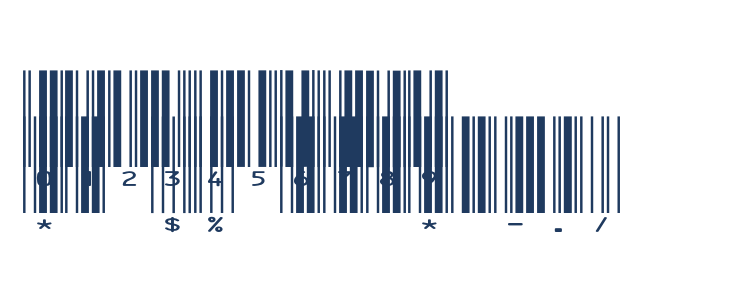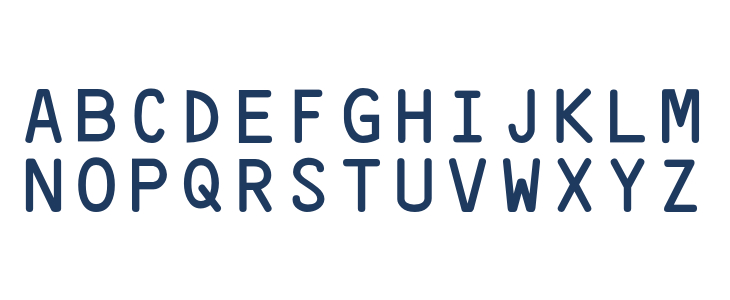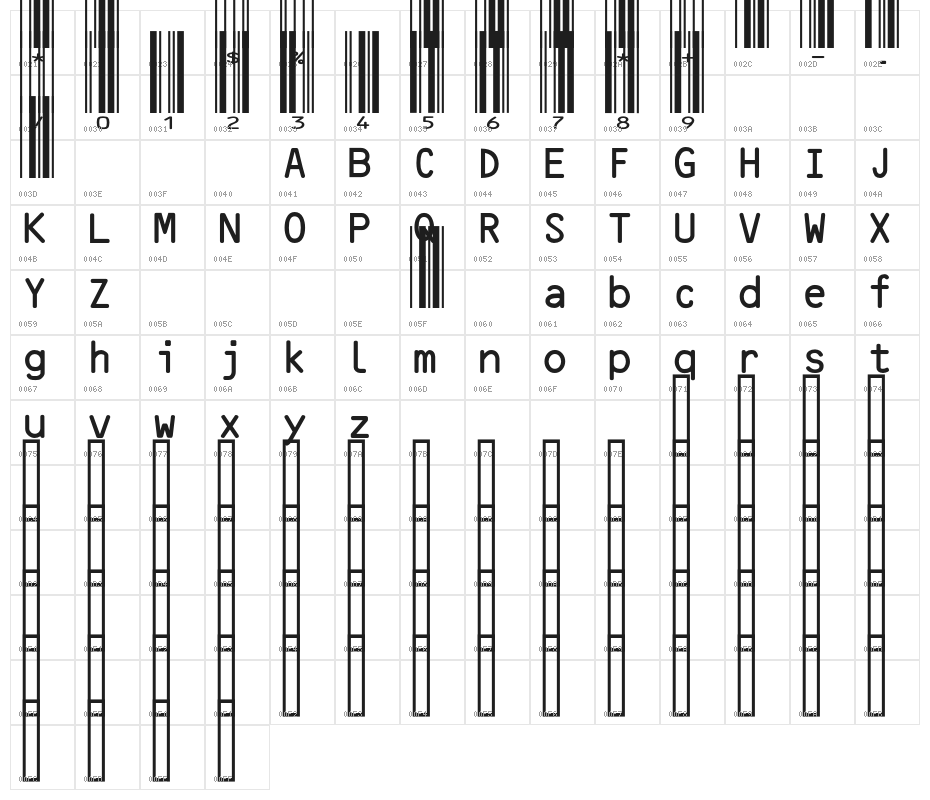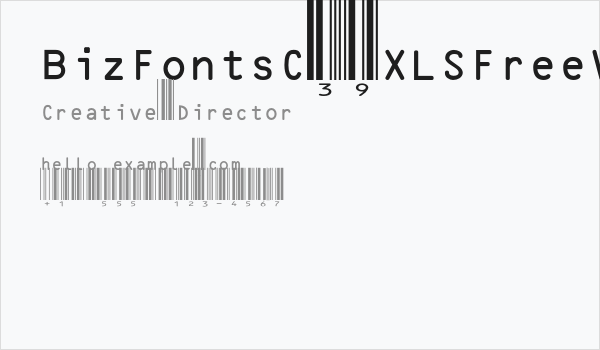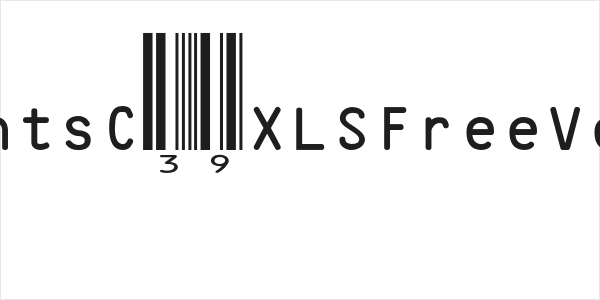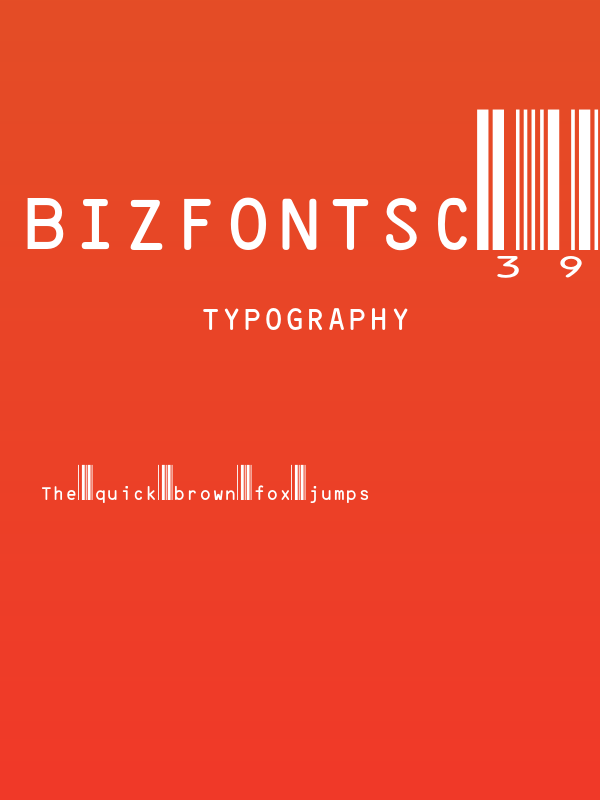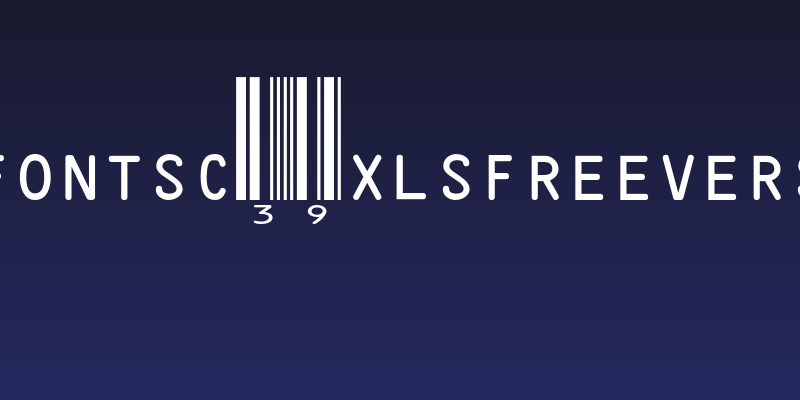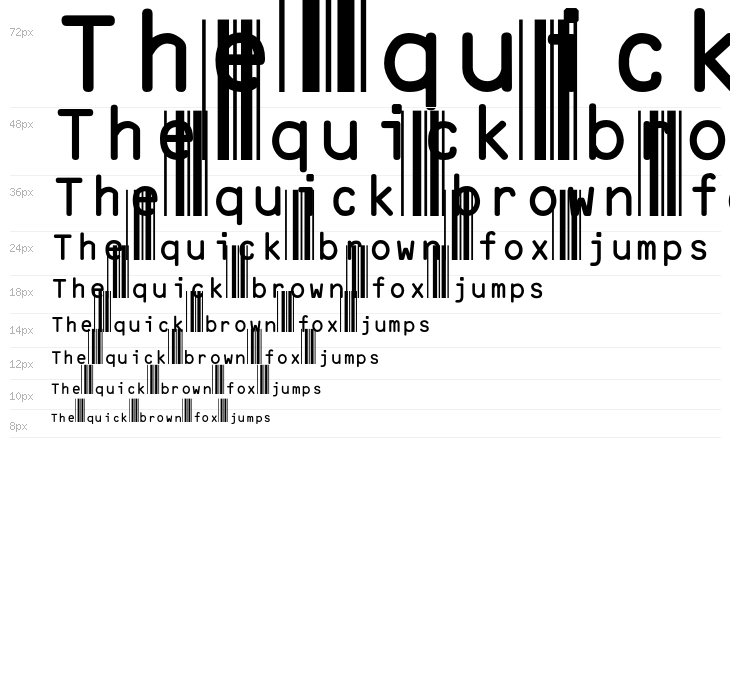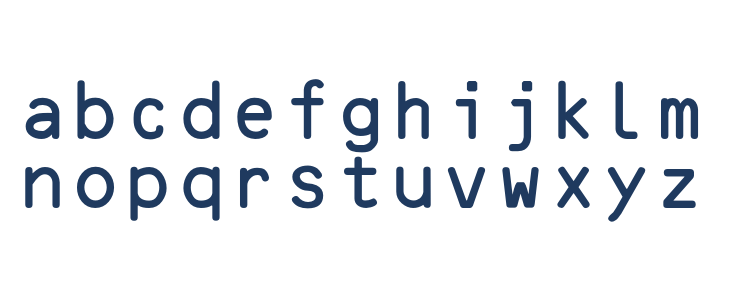
BizFontsC39XLSFreeVersion Font
BizFontsC39XLSFreeVersion Description
A monospaced, geometric font with thick, uniform vertical and horizontal strokes, featuring a barcode-inspired design with minimal curves and high legibility.
Overall StyleModern, Industrial, Functional
Use CaseBarcodes, Labels, Technical markings
Proposed ProjectsBarcode labels, packaging, industrial design, inventory tags, technical documentation.